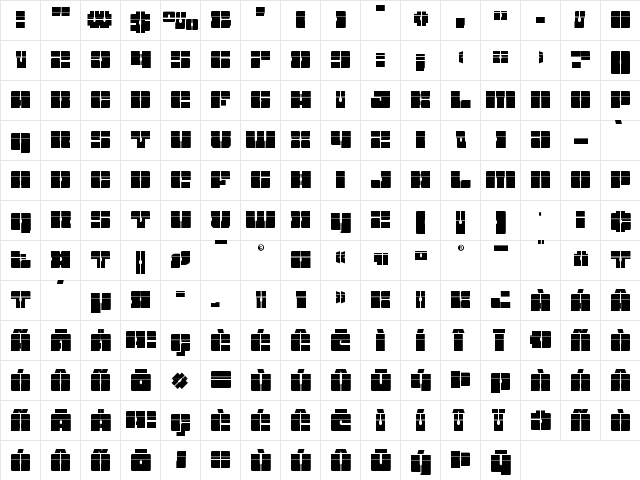
Star Nursery Laser Regular
Design Context for Star Nursery Laser Typeface
Star Nursery Laser is a composed and adaptable typeface that performs quietly and consistently across a wide range of design contexts.